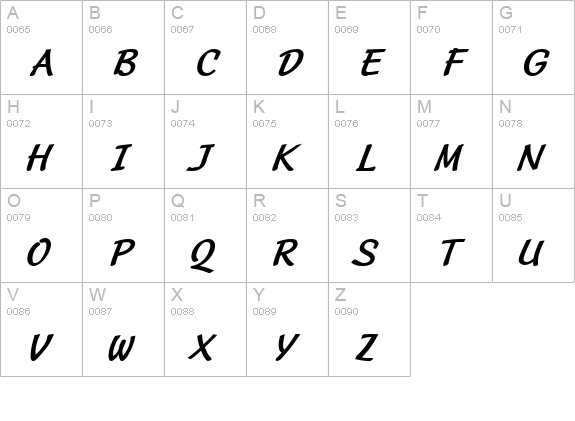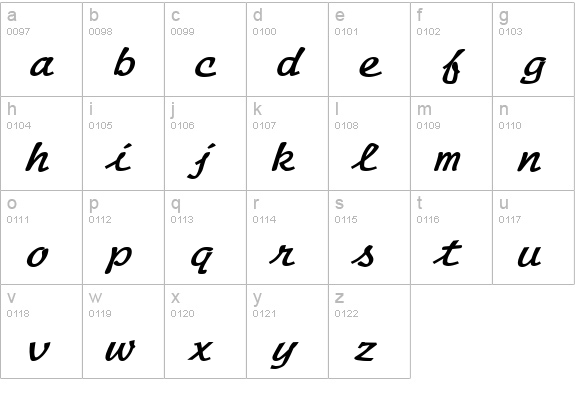
Manuscript Wide BoldItalic Font Details
Manuscript Wide BoldItalic is a distinctive, extended-width variant in the Manuscript typeface family \xE2\x80\x94 well suited to design and typography projects.
Introducing Manuscript Wide BoldItalic font, a captivating and expressive typeface that effortlessly combines elegance with a touch of playfulness. This stunning font is perfect for projects that require a bold yet refined look, making it a versatile choice for a wide range of design applications. With its unique blend of bold strokes and italicized curves, Manuscript Wide BoldItalic font exudes confidence and sophistication. Its wide letterforms add an extra level of impact, making it ideal for headlines, titles, and eye-catching designs that demand attention. What sets Manuscript Wide BoldItalic font apart is not just its striking aesthetics, but also its availability as a free download on FontsMarket.com. This means you can enjoy the beauty and versatility of this exceptional font without any cost or hassle. Whether you're a professional designer looking to enhance your typography collection or a creative enthusiast exploring new possibilities, Manuscript Wide BoldItalic font is a valuable addition that won't break the bank. Inspired by the timeless beauty of calligraphy, Manuscript Wide BoldItalic font brings a sense of artistry and elegance to any project. From branding and packaging to social media graphics and invitations, this font effortlessly adds a touch of sophistication and allure. Designed with meticulous attention to detail, Manuscript Wide BoldItalic font offers a harmonious balance between boldness and finesse. Its clean and legible letterforms ensure readability, while its distinct personality injects character and charm into every word. So why wait? Embrace the power of Manuscript Wide BoldItalic font and take your designs to new heights. Download it for free now at FontsMarket.com and unlock a world of creative possibilities. Whether you're designing for print or digital, this font will captivate your audience and leave a lasting impression. Don't miss out on this incredible opportunity to elevate your typography game with Manuscript Wide BoldItalic font.